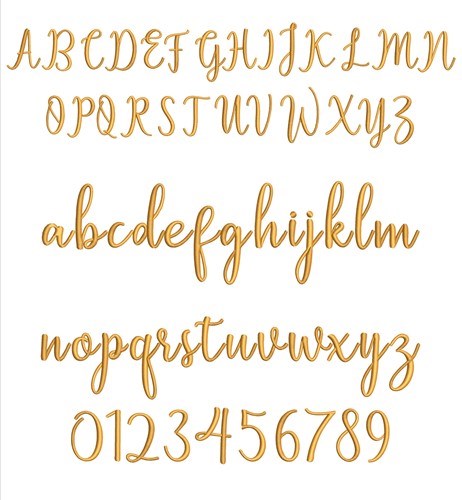
Unicorn Creatives is happy to present Sallita Embrilliance Font machine embroidery font which has Flowing script machine embroidery font exemplified in the word 'Sallita', ideal for personalizing garments and home decor. Available in BX font and Embrilliance formats. included. If you would like to view more embroidery fonts and alphabets please search our embroidery fonts page.